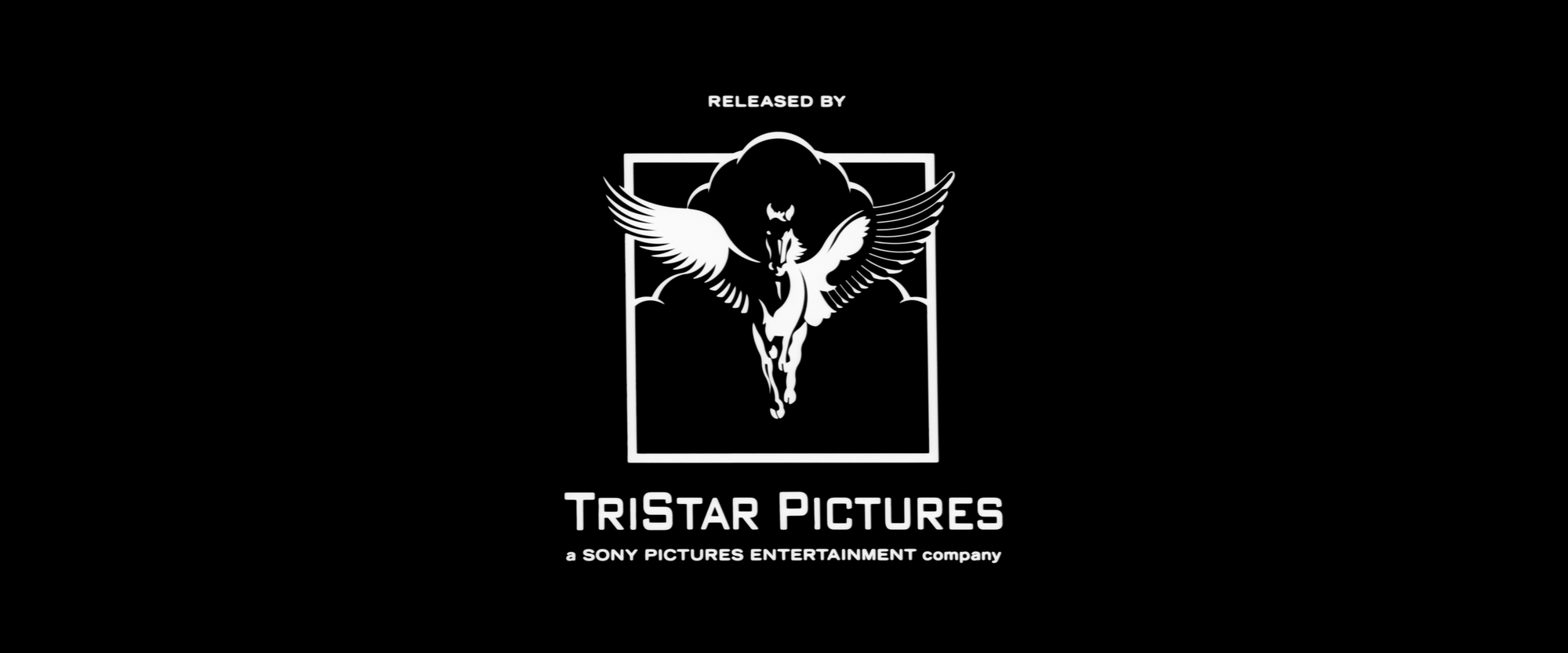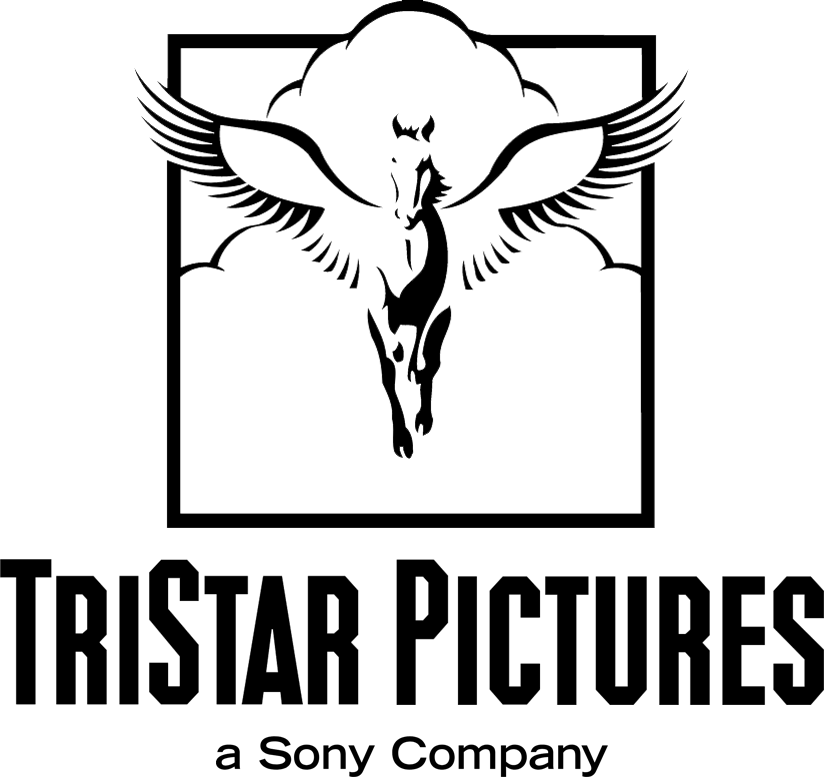
Tristar Pictures Logo Font
Tristar pictures logo font. Bank gothic font has been used for the printed logo of the studio. There is a thunderstorm happening in the background of the already formed logo. The red words tri star written in a matterofact font fade and a blood red triangle comes out with the blood red word pictures below it. The pegasus stops when its wings are fully spread out and the tristar text fully appears.
It is a sans serif font made by the deviantart user 629lyric based on the logo. Last video of 2018. Tristar in a shiny gold chiselled bold font slowly fades in at the top of the screen with the letters t and s in a bigger font than the other letters as the flash dims away slowly. Made it on powerpoint.
Columbia pictures is an american film production and distribution studio. The text slowly shines as the fog still flows. The text is in the bank gothic font and the both respective logos are brighter. Tristar in a light shiny gold chiseled bold font slowly fades in above it on top of the screen with the letters t and s in a bigger font that the other letters.